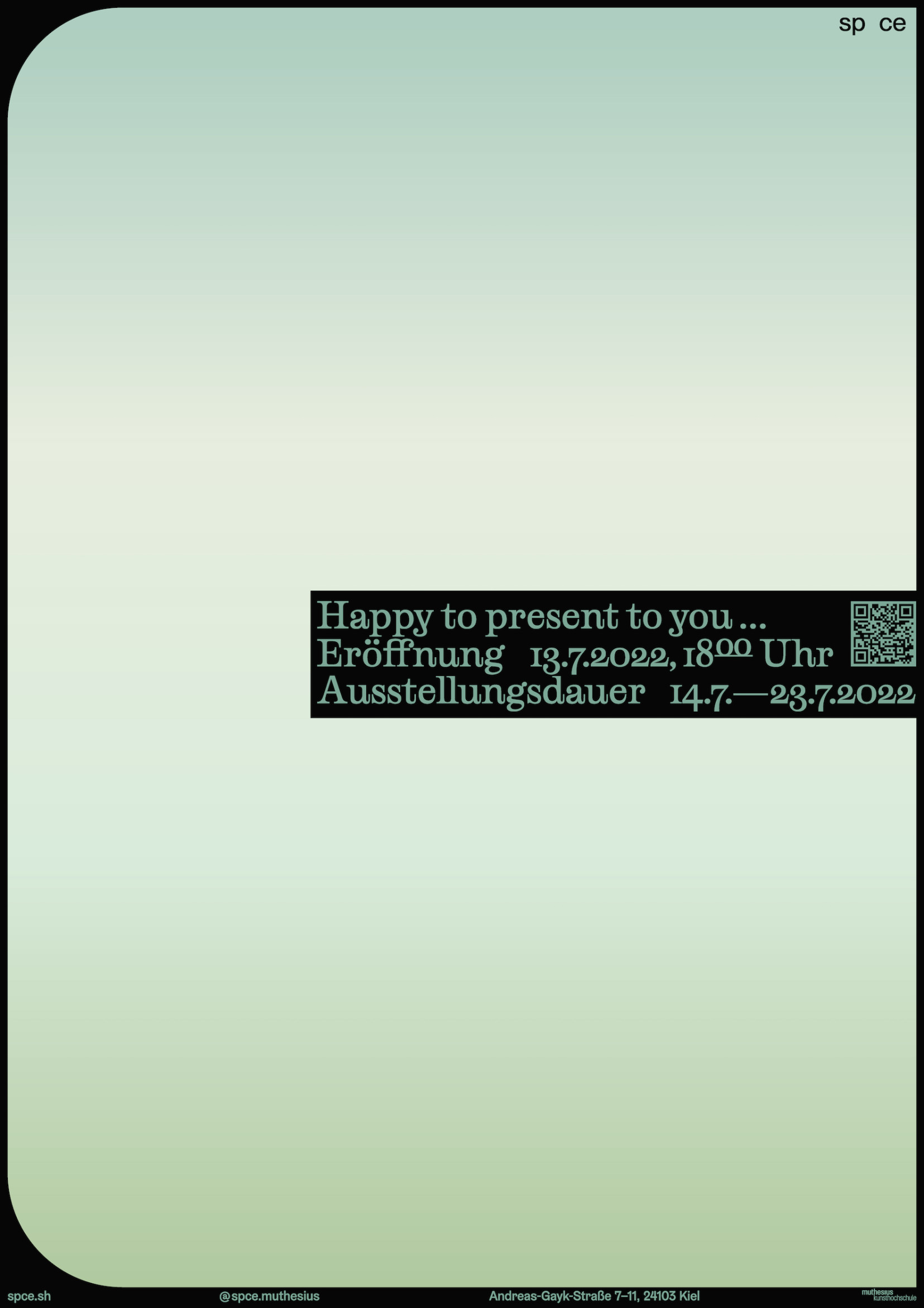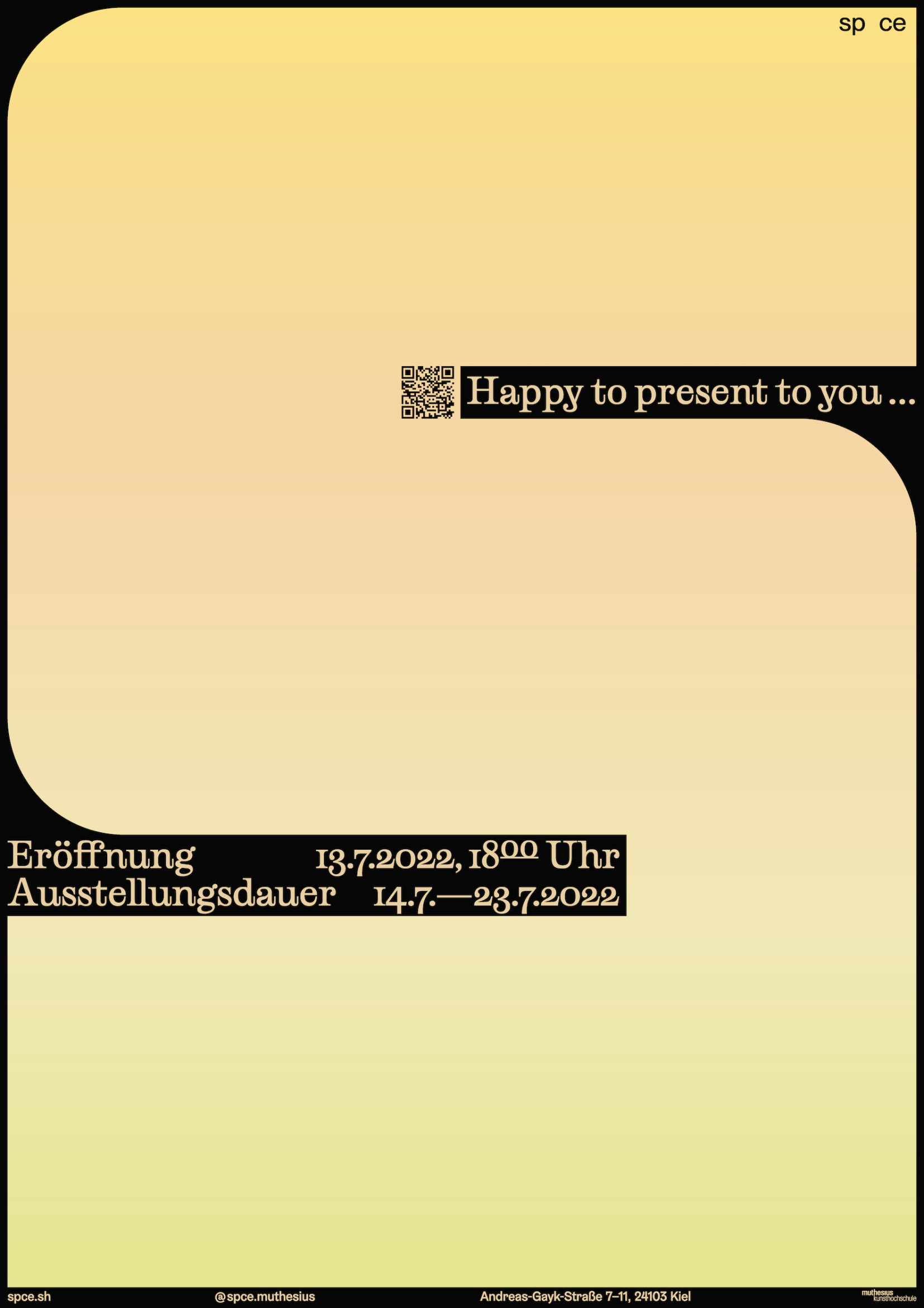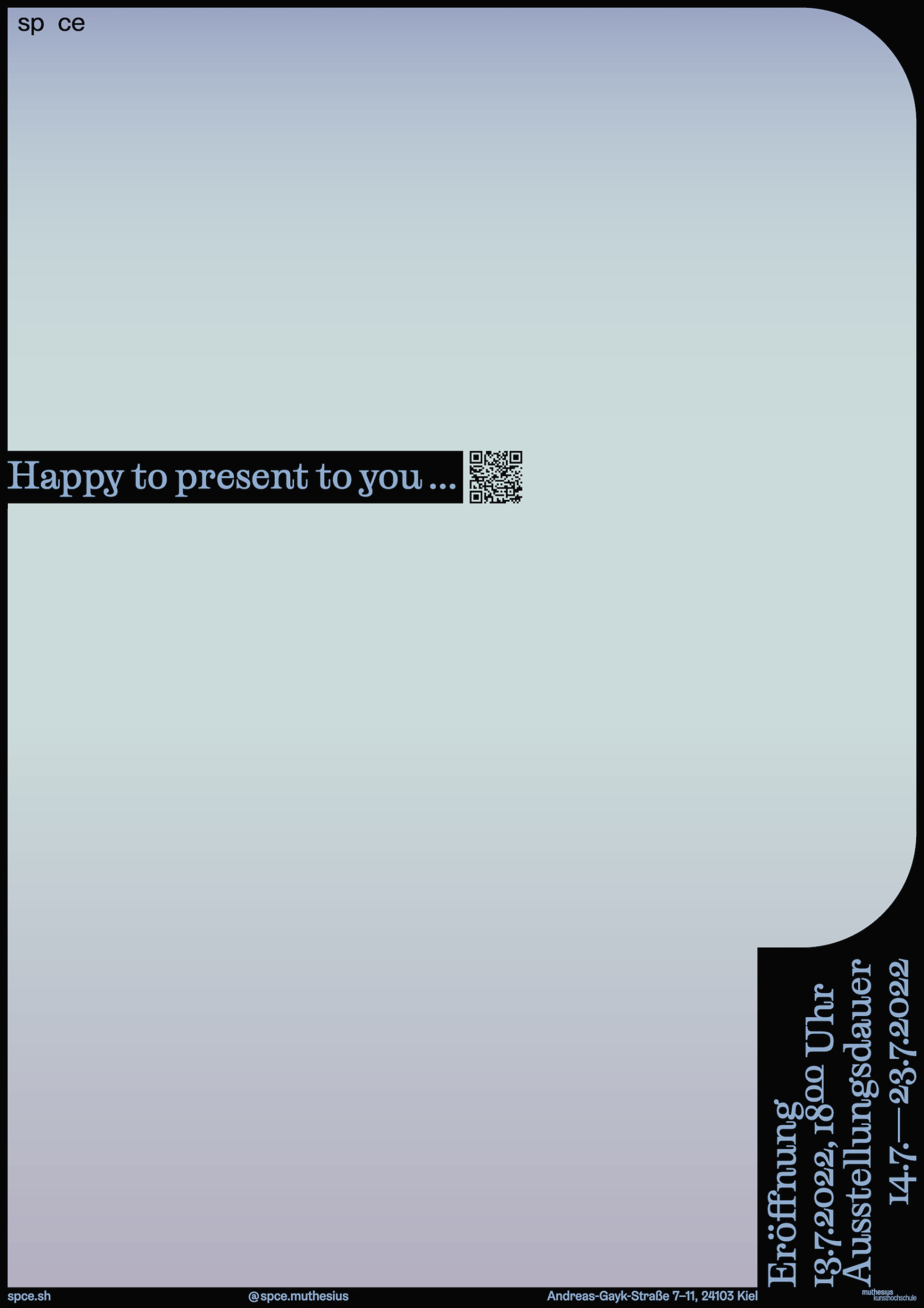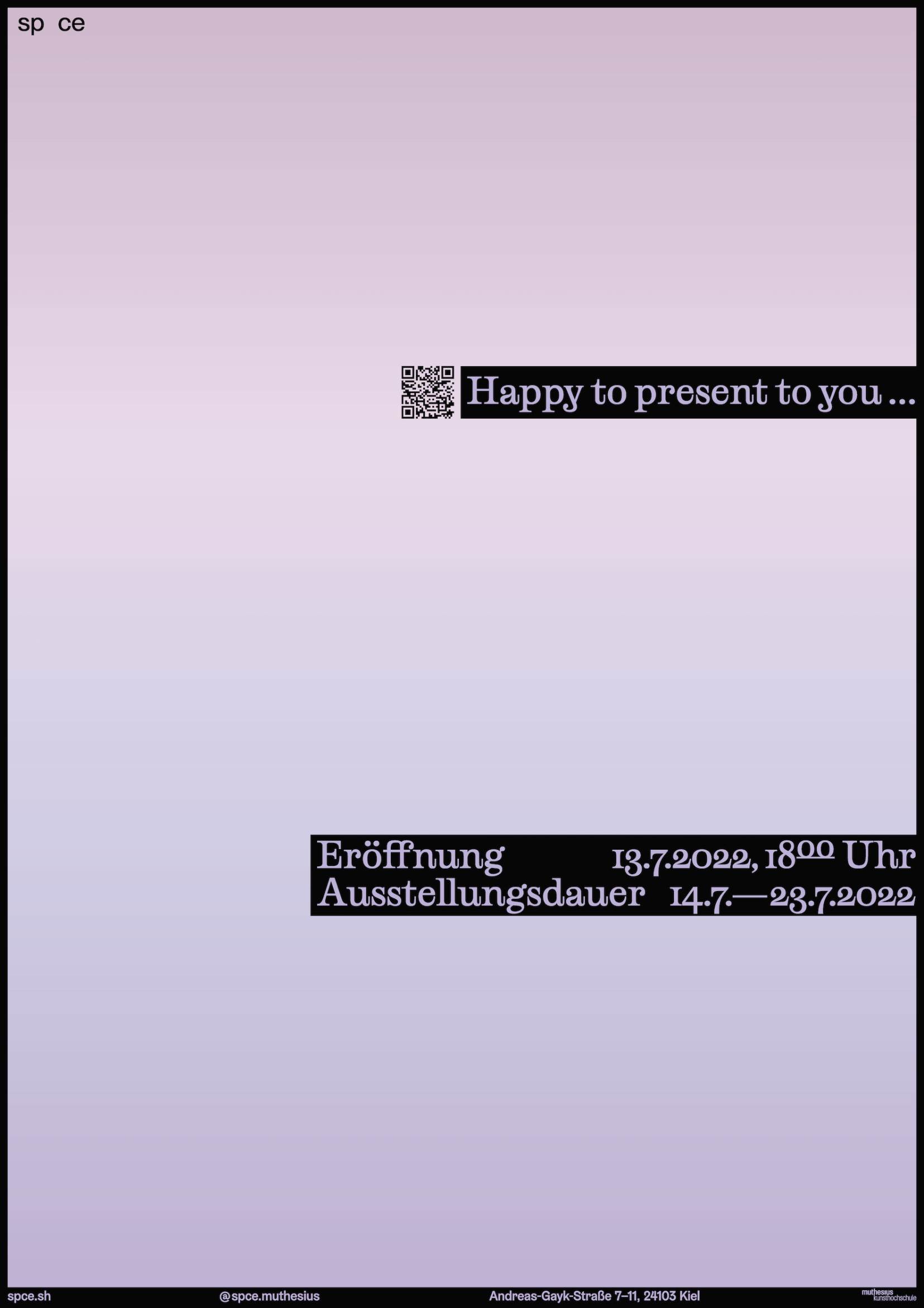
Happy to present to you …
Poster series and flyer for the opening of the new exhibition space of the Muthesius Academy of Fine Arts Kiel — sp ce. A space is created through simple graphic means; This space takes the shape of the letters of the name and pushes all other elements into the confines of the poster space. Four different color gradients stand for the four study courses represented in the spce.
Typeface: Graebenbach by Camelot Typefaces
& Scotch Genovese by Scott Vander Zee